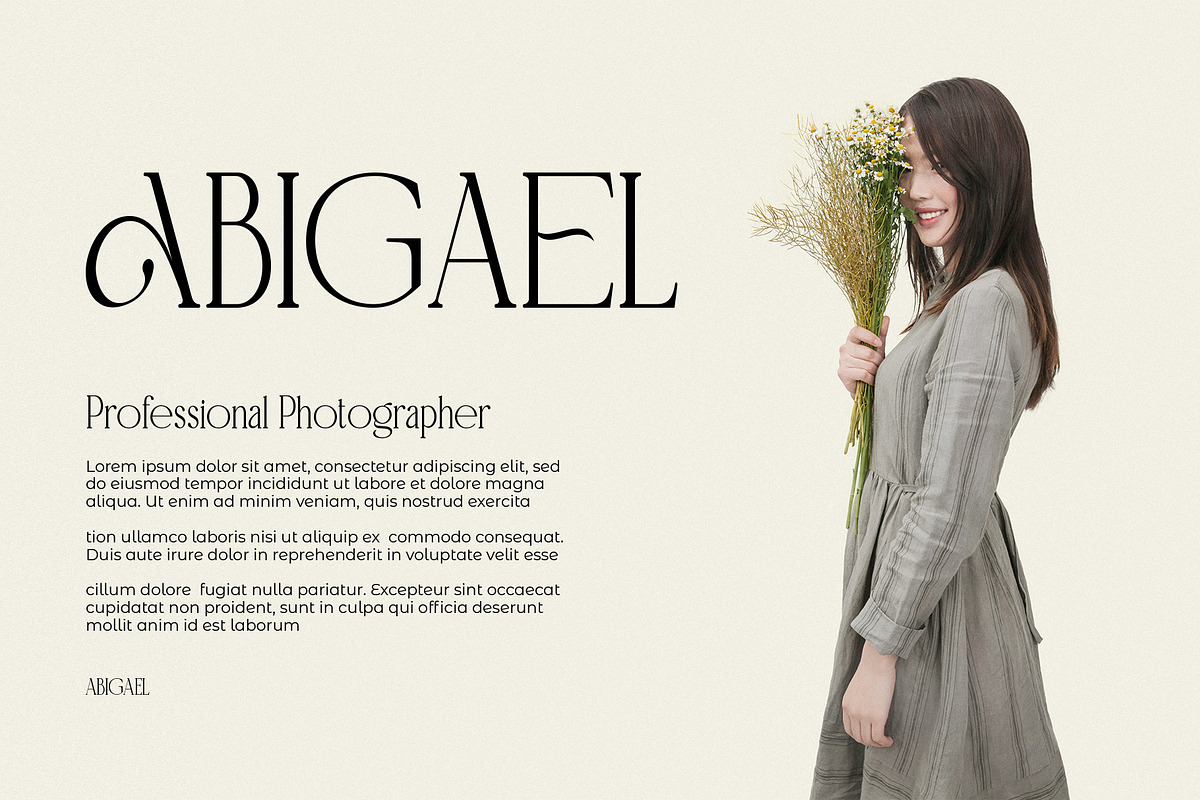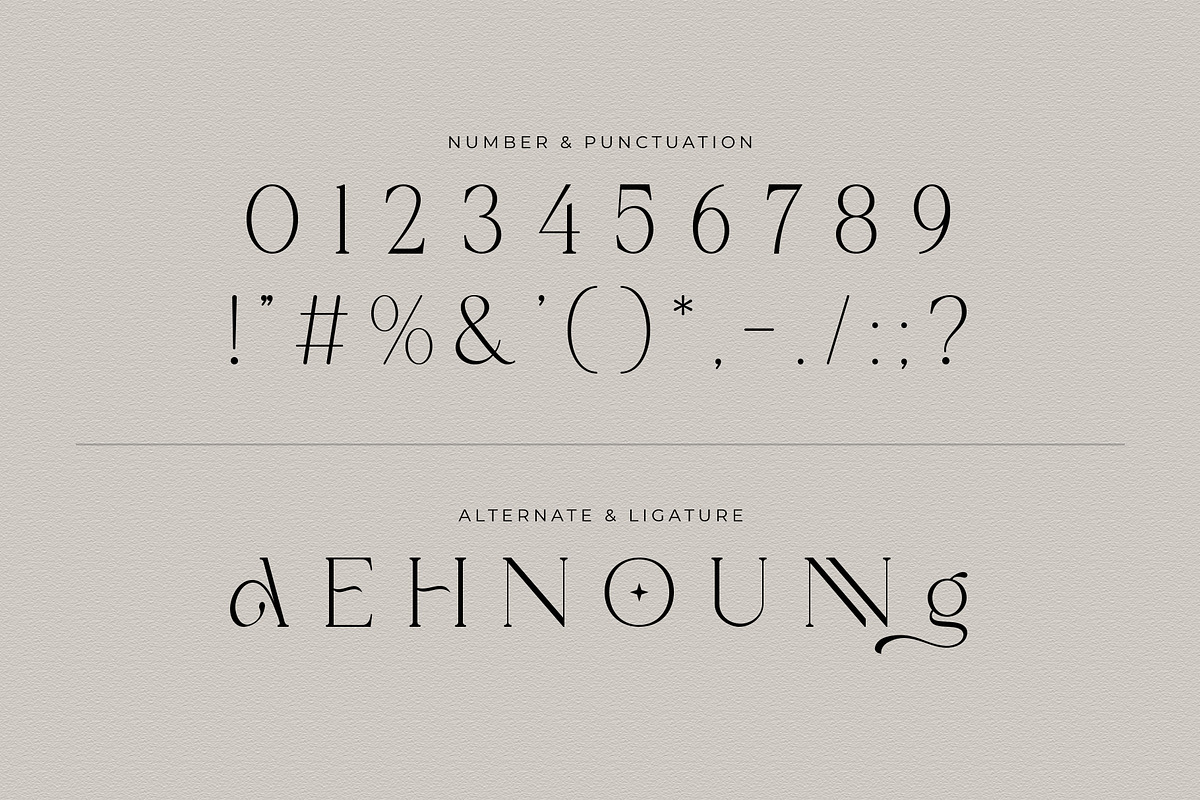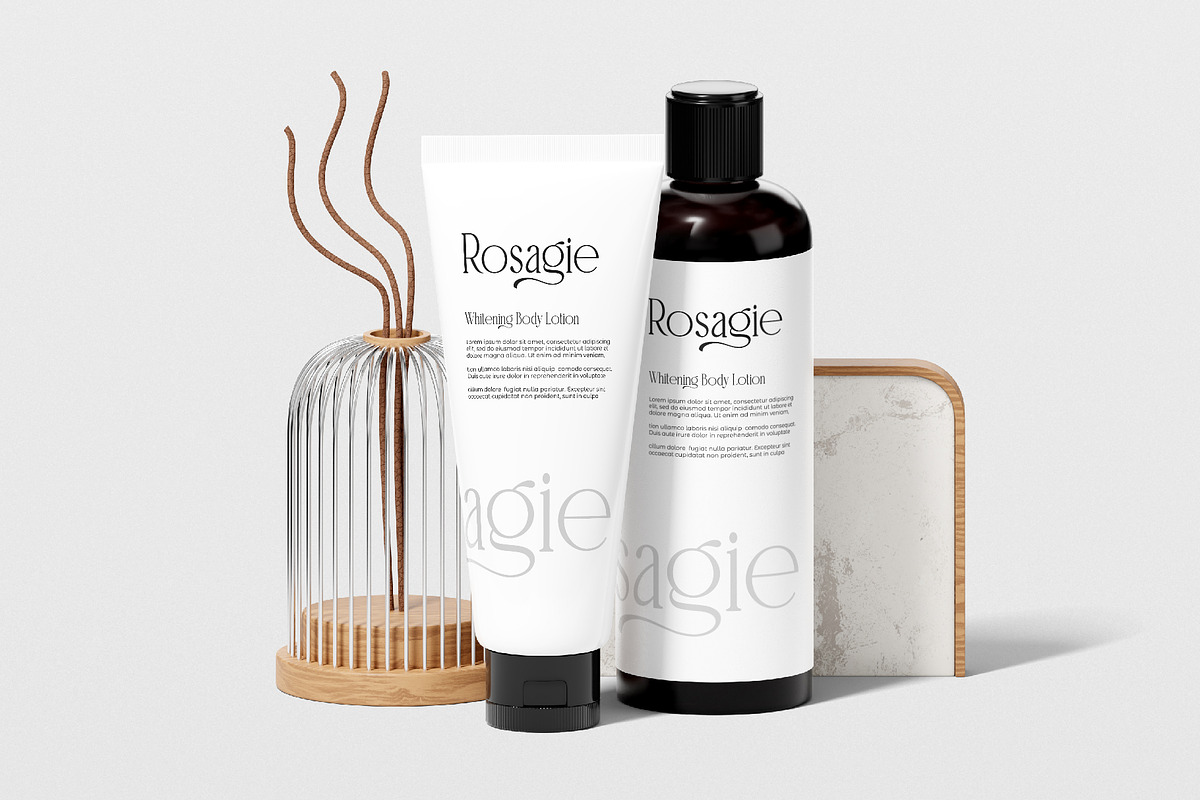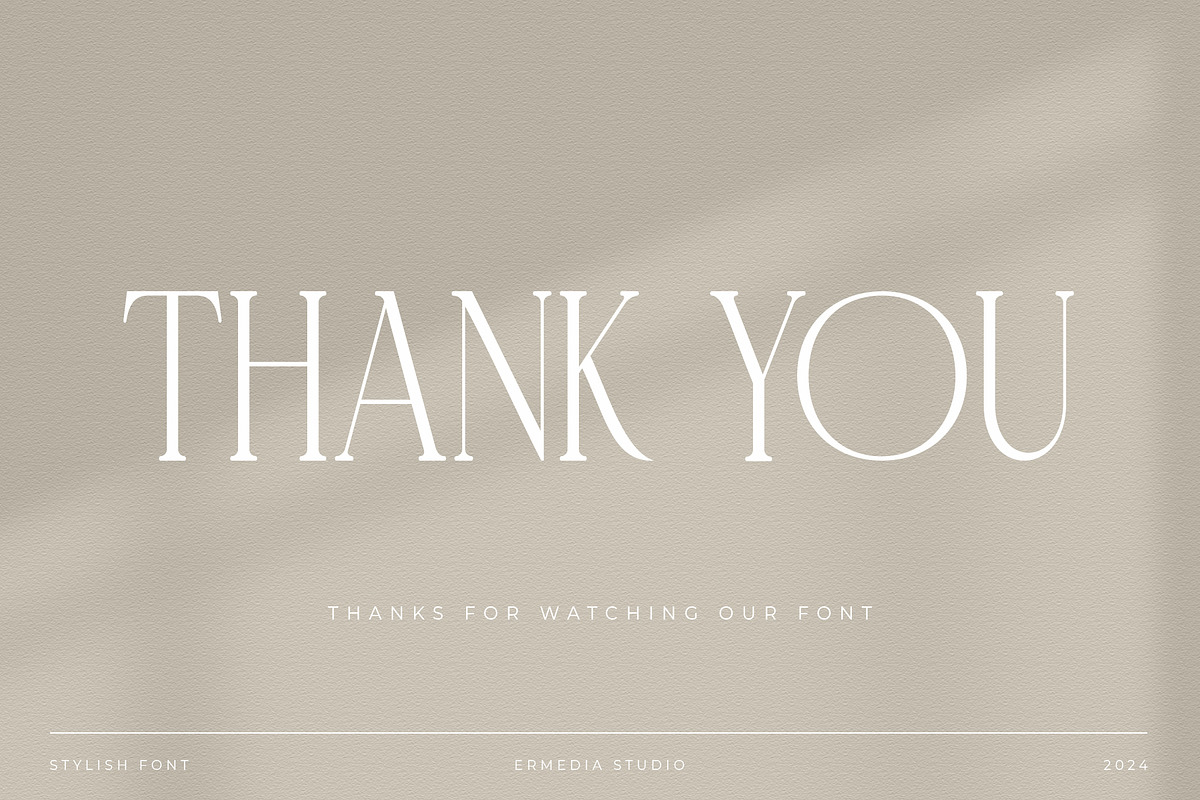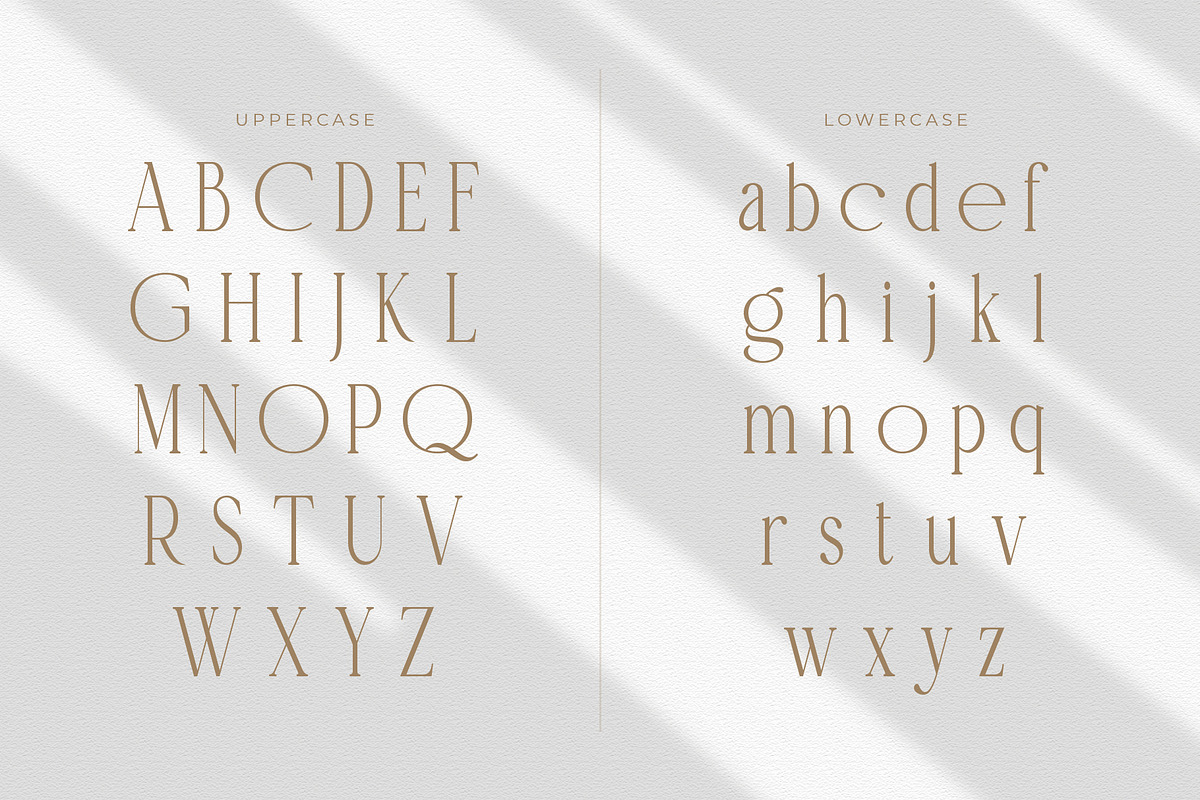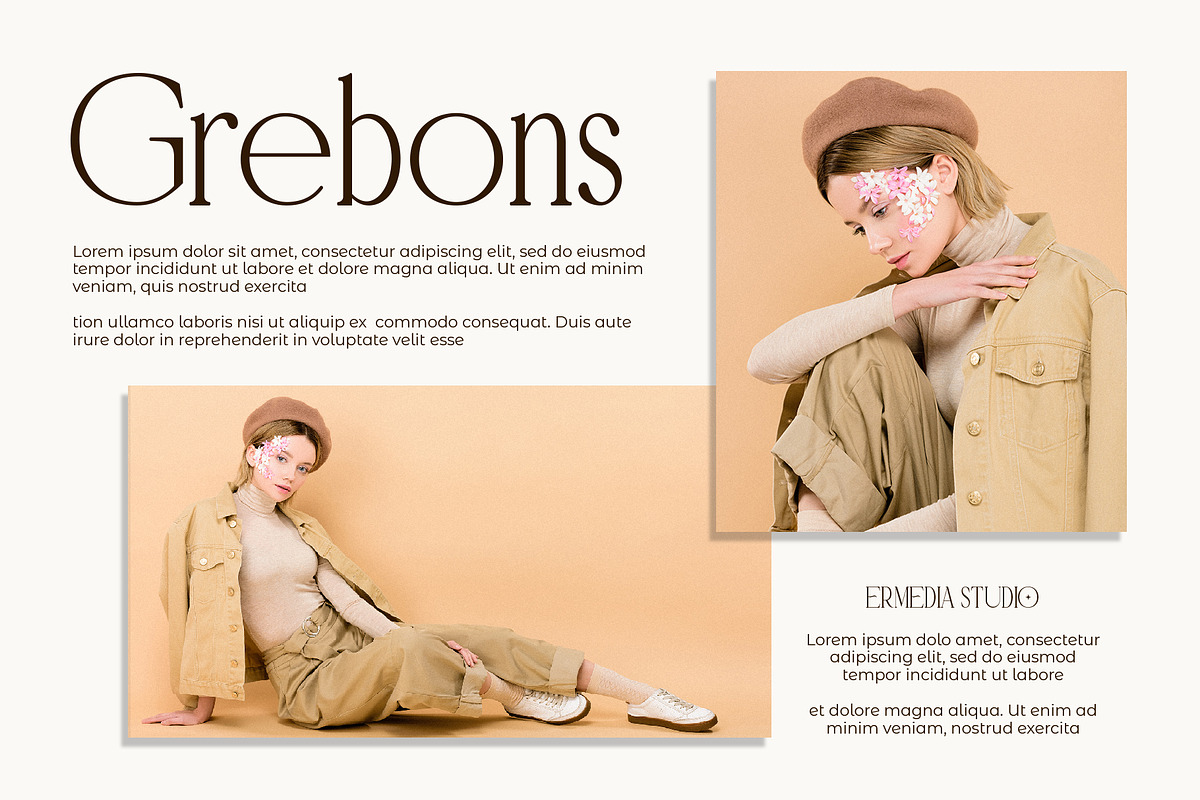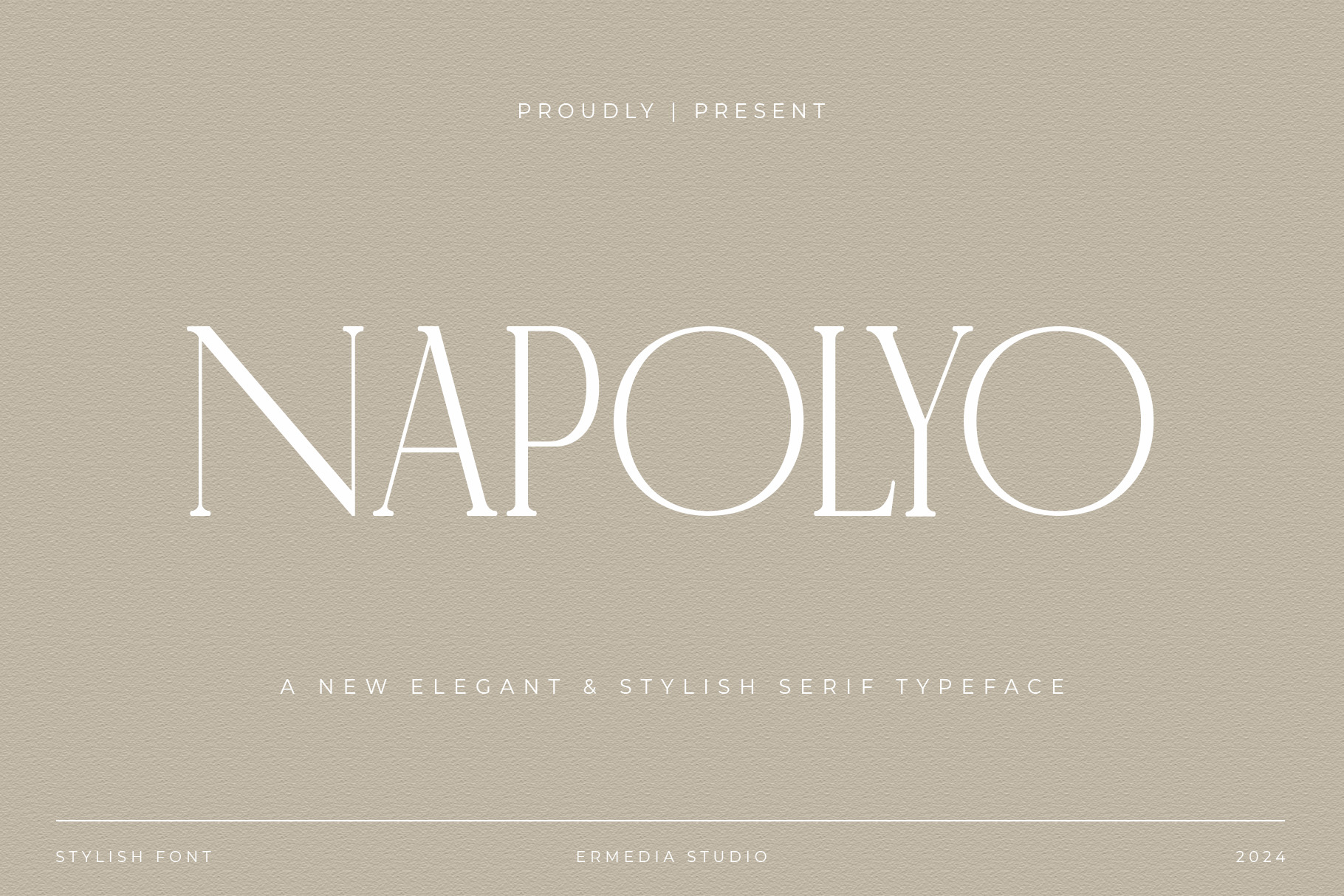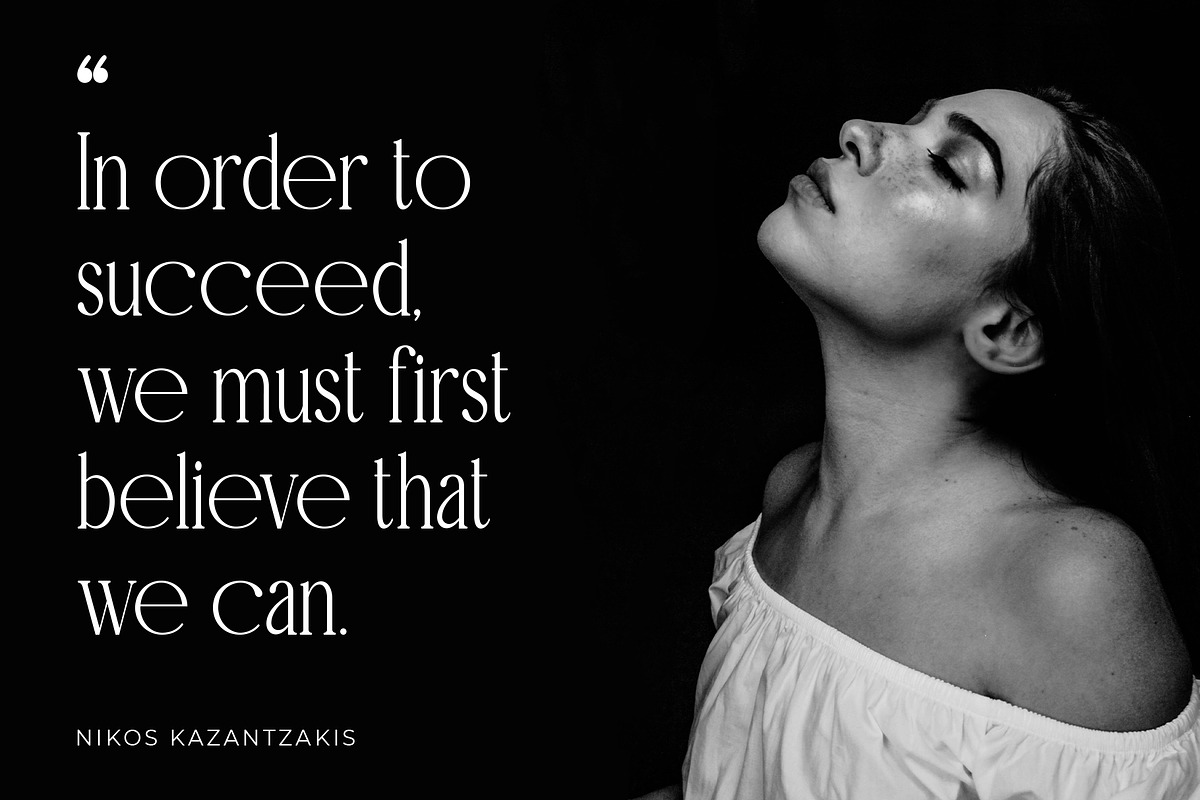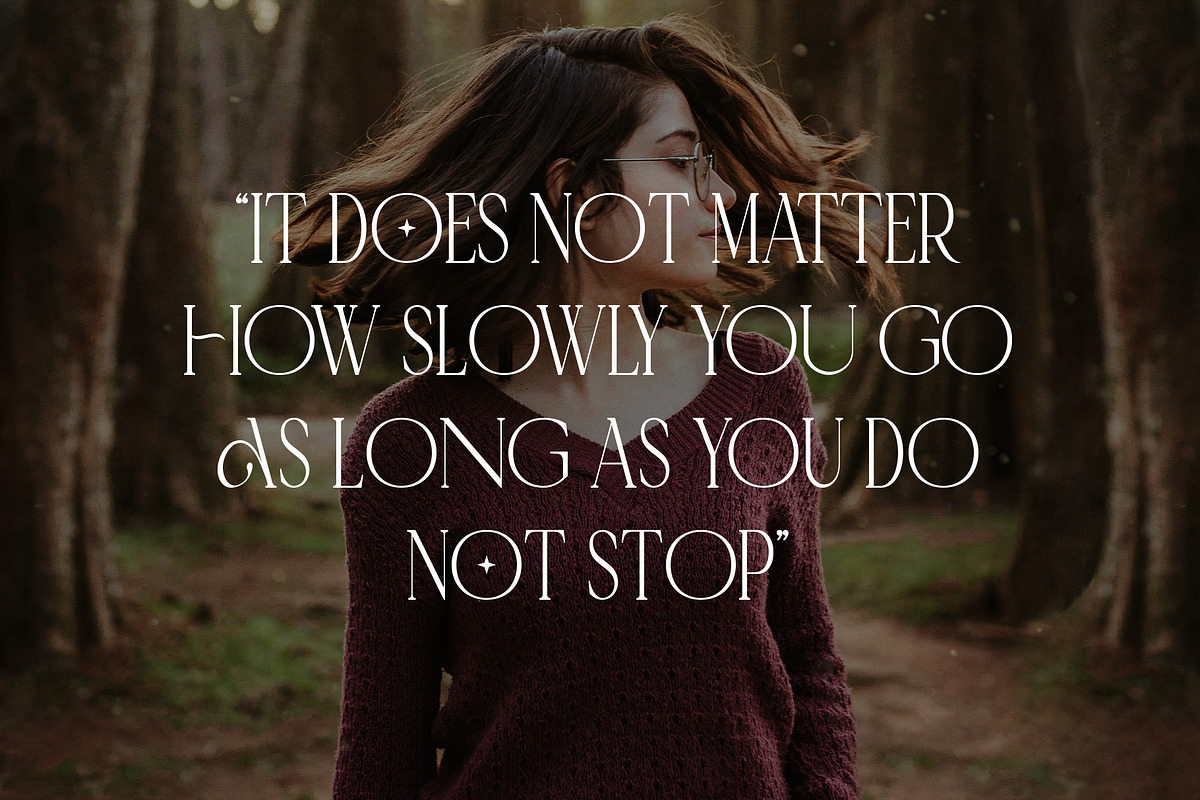
Napolyo - Elegant Serif Font
Introducing the Napolyo Serif Font: is a trendy, elegant, classic and stylish serif font. He has a unique character. Very suitable to be combined with invitation card designs, company logos, film titles, film names, business cards, book titles, brand names and various other designs. Napolyo Serif Font: is a trendy, elegant, classic and stylish serif font. This charming and stylish font makes it the perfect partner for any project.